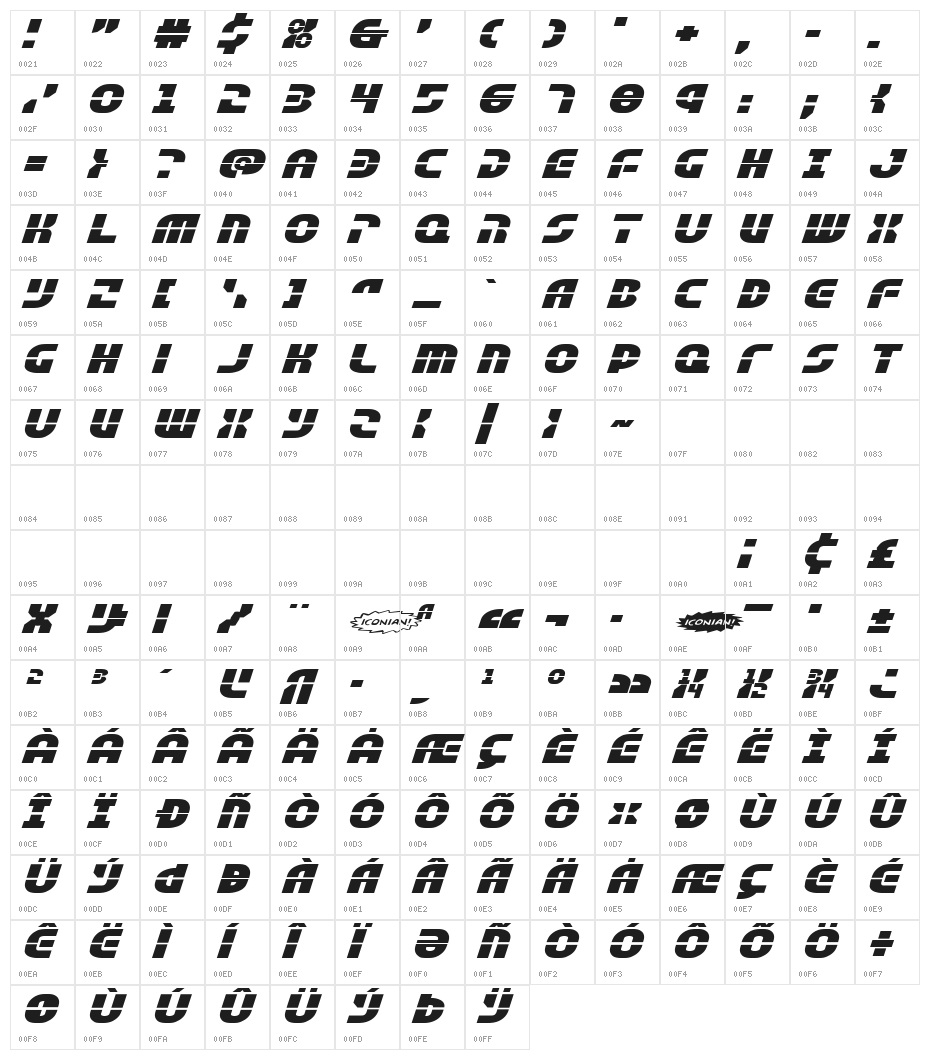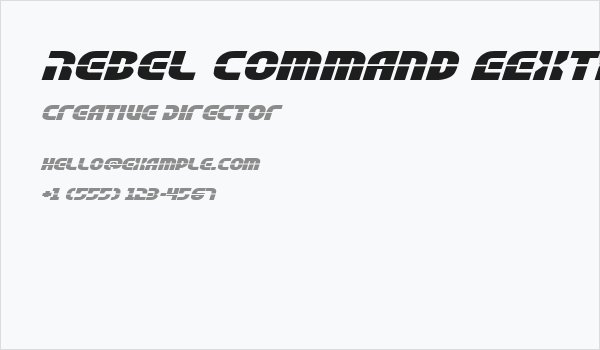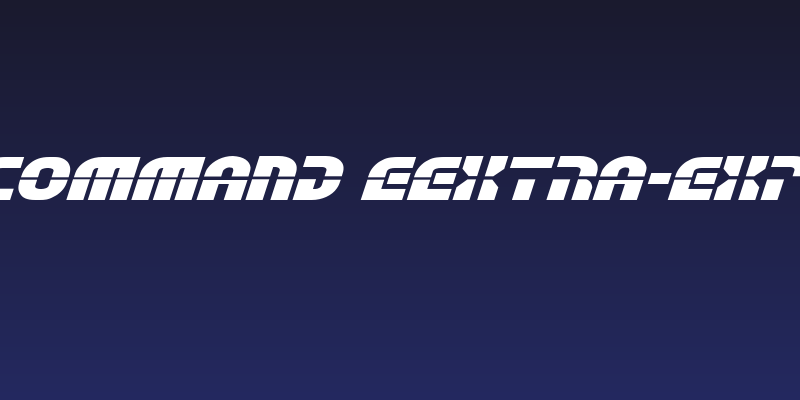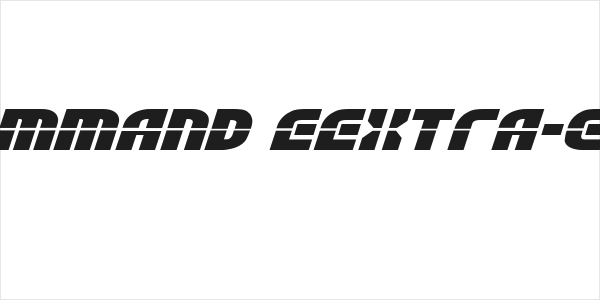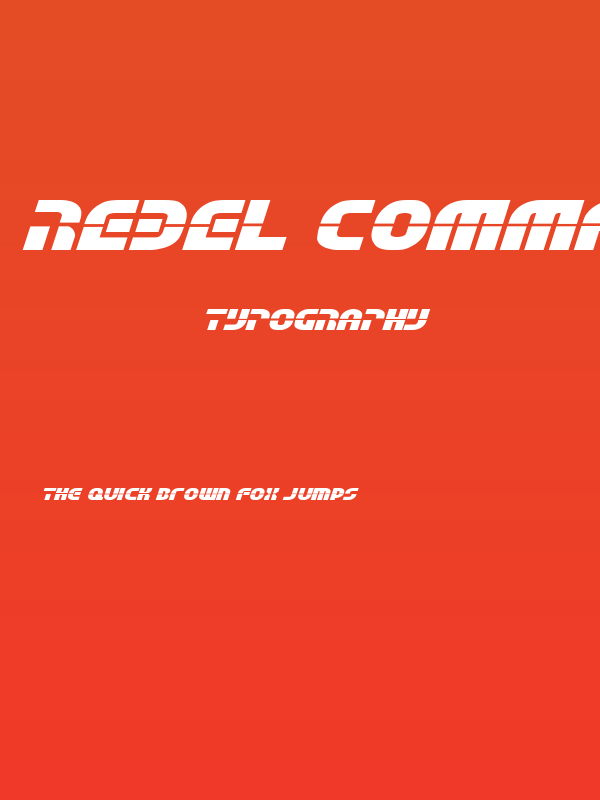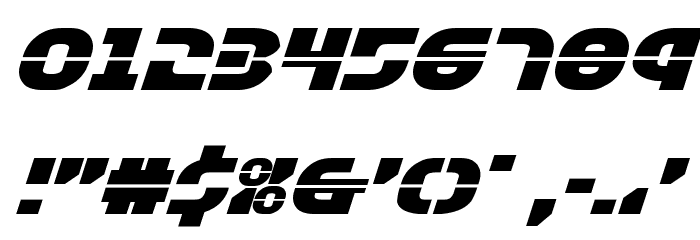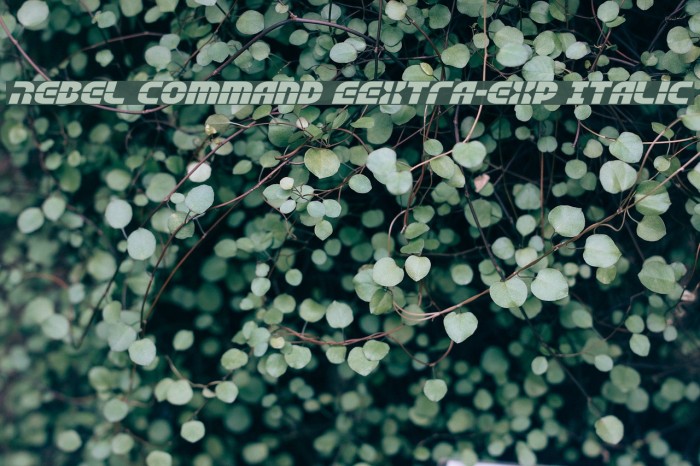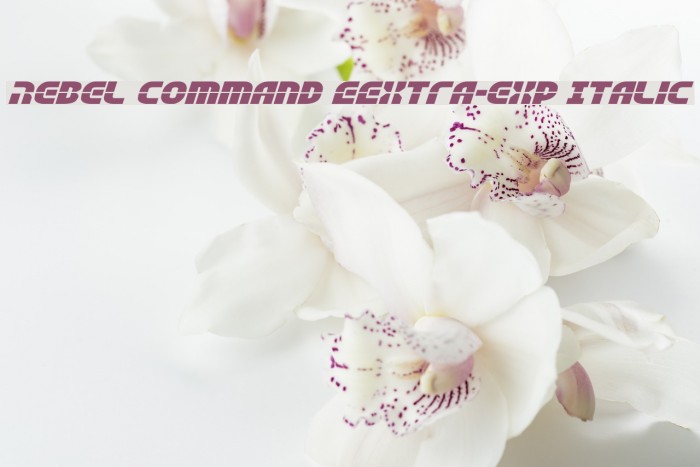
Rebel Command EExtra-exp Italic Font
Rebel Command EExtra-exp Italic Description
This font exhibits a bold and futuristic style with a strong geometric influence. The characters are designed with a distinct slant, giving them an italicized appearance. The strokes are thick and consistent, creating a powerful visual impact. The font features a unique cut-out design within each character, adding to its modern and edgy aesthetic. The uppercase and lowercase letters maintain a uniform width, while the numerals and special characters follow the same stylistic approach. This font is ideal for projects that require a bold and dynamic look, such as technology branding, sports team logos, or sci-fi themed designs.
| Width | Expanded |
| Overall Style | Futuristic |
| Use Case | Logos, Headlines |
| Proposed Projects | Ideal for technology branding, sports logos, and sci-fi themed designs. |